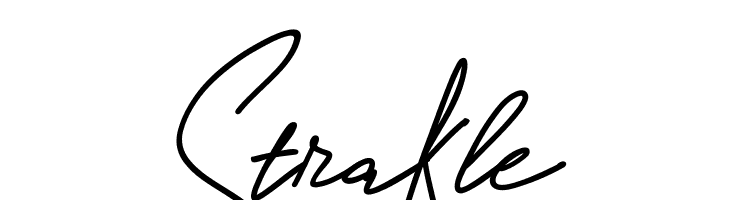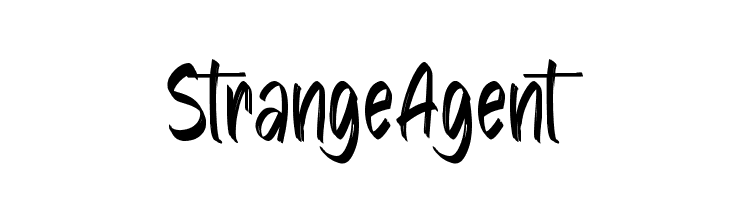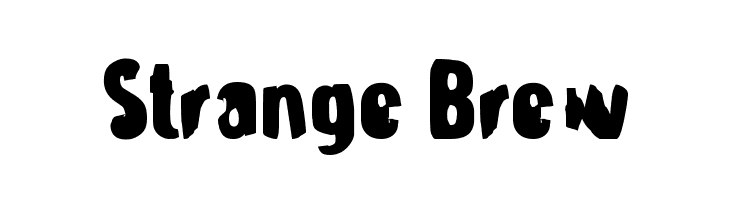
A bold, brush-style font with an energetic and artistic appearance.
A playful, handwritten font with a quirky style.
A playful, whimsical font with irregular, bold letterforms and a hand-drawn feel.
An ornate and decorative script font with flowing lines and elaborate swashes.
A bold, hand-drawn font with playful, irregular characters and mixed patterns.
A playful, hand-drawn 3D font with bold outlines and a whimsical style.
A bold, playful font with a hand-drawn, shadowed style.
A bold, playful font with a 3D effect and striped pattern.